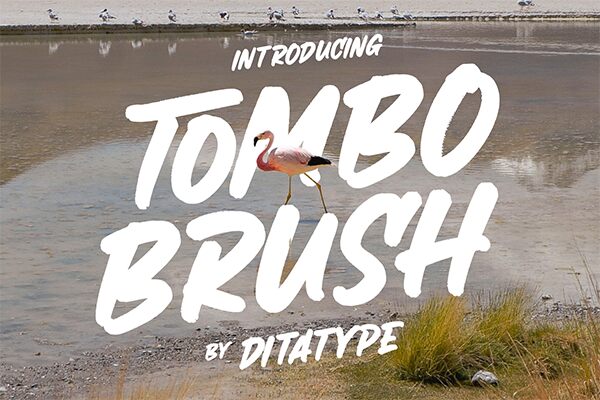
Tombo Brush, a bold and captivating brush font designed by Ditatype, exudes a dynamic energy that commands attention. Its organic, handcrafted strokes convey a sense of movement and vitality, infusing any design with a touch of raw expressiveness. Tombo Brush's bold, confident lines and impactful presence make it a standout choice for creating eye-catching headlines, attention-grabbing logos, and powerful typographic statements.
This versatile font seamlessly transitions between diverse design applications, from packaging and branding to editorial layouts and advertising campaigns. Tombo Brush's bold character and unique personality lend themselves particularly well to projects that require a strong, memorable visual impact, allowing designers to craft bold, memorable compositions that leave a lasting impression on the audience.